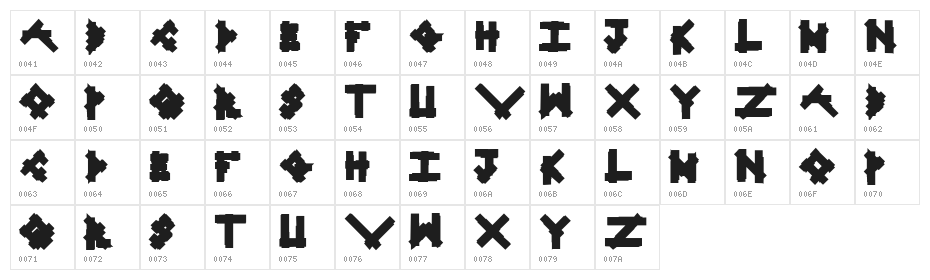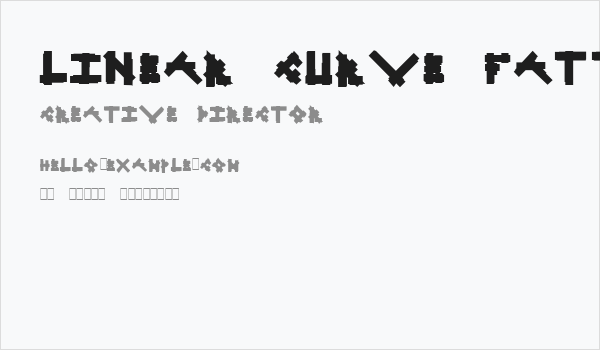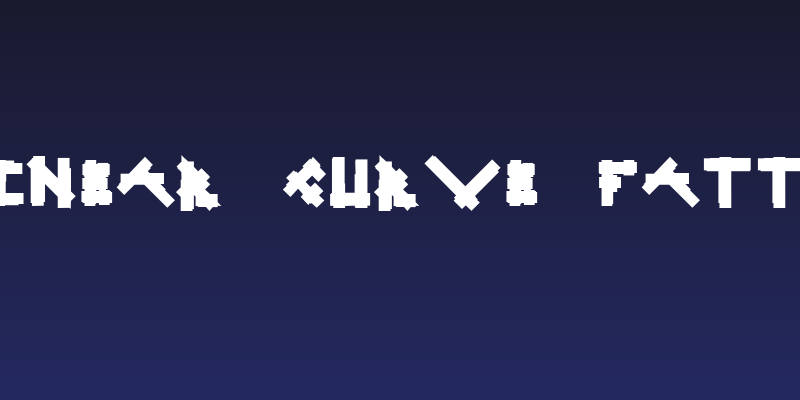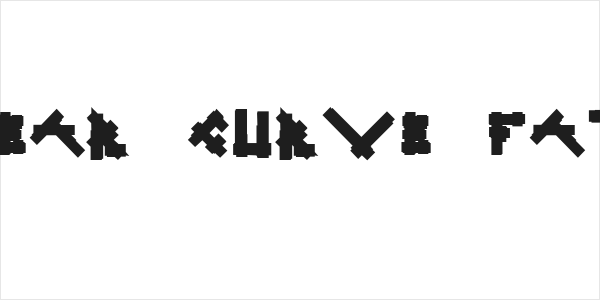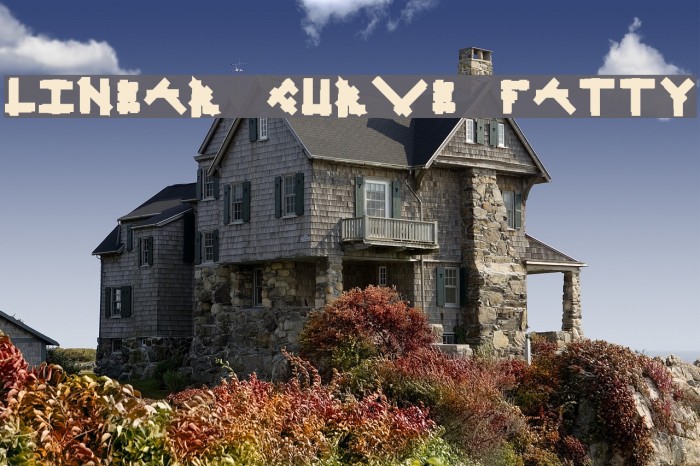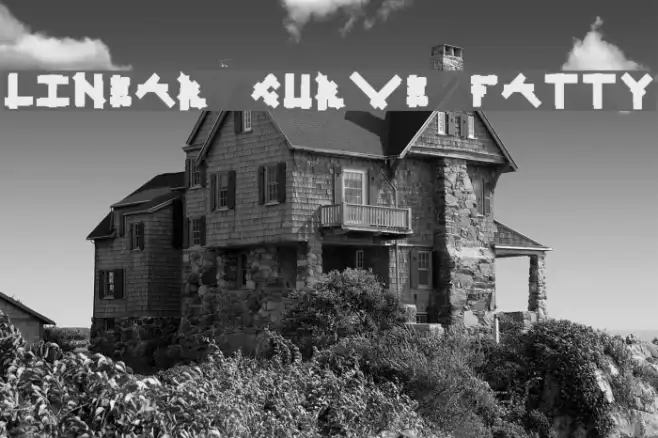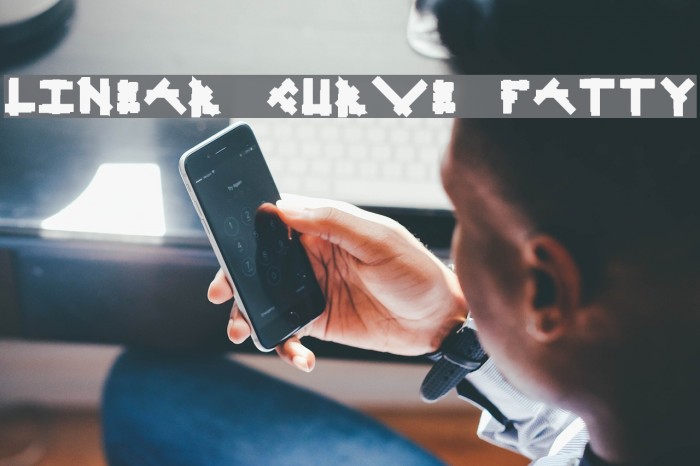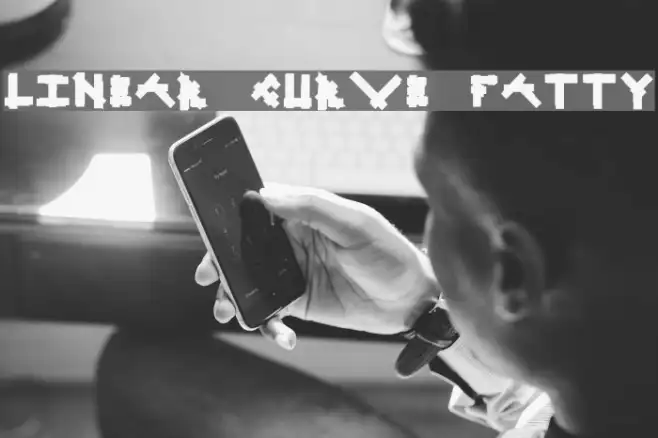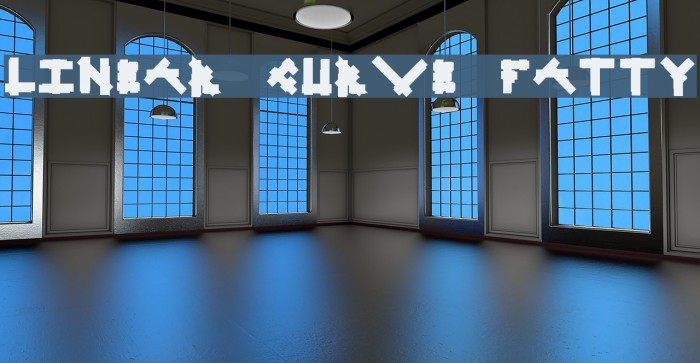
Linear Curve Fatty Font
Linear Curve Fatty Description
This font features a bold and striking design with a unique blend of linear and curved elements. The characters are heavily stylized, with thick strokes and sharp angles that create a sense of movement and energy. The uppercase letters are particularly distinctive, with exaggerated forms that make them stand out. The overall appearance is both modern and edgy, making it suitable for projects that require a strong visual impact. The font's geometric nature is complemented by its consistent weight, which adds to its boldness. The absence of lowercase letters and numbers suggests a focus on decorative or display purposes.